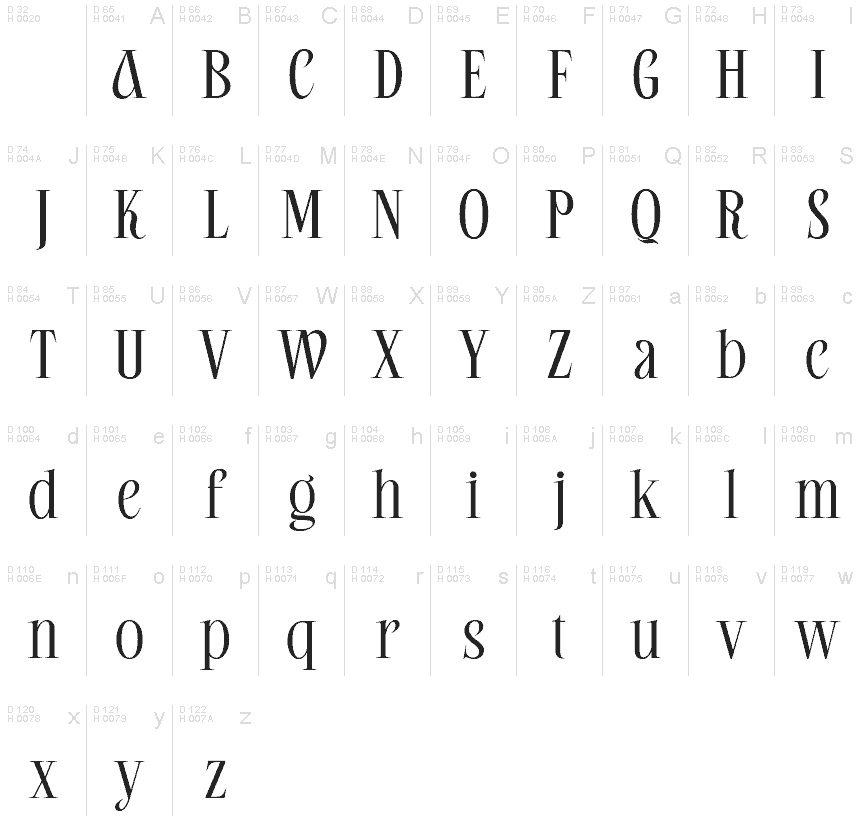
CS Korima Regular Demo
CS Korima font, from Craft Supply Co., is a refined serif font with an elegant aesthetic. Combining elements of classic and modern styles, it boasts a sophisticated touch that can elevate any design project. Its condensed form allows for a seamless integration into various formats without compromising on readability and allure.
Explore its full potential in book covers, headings, advertising campaigns, branding projects, product packaging, labels, magazines, posters, logos, fashion designs, invitations or presentations. With just the right balance between new and old styles this free serif font might just be perfect for your next endeavor.